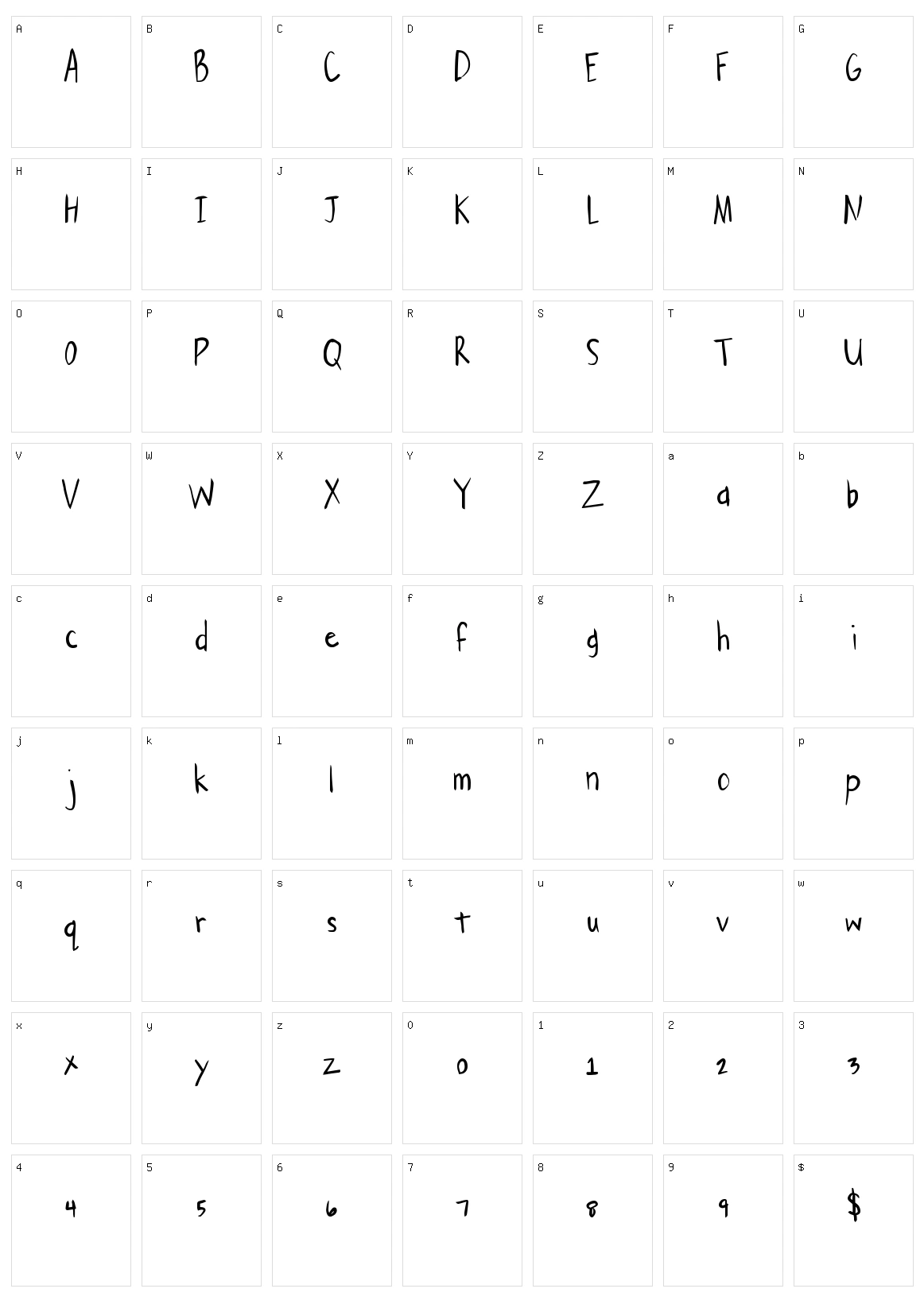
The free font Clean Easy is carefully designed by Xerographer Fonts, showcasing a thoughtful balance of creativity and usability and falls under the Script font style. When you download the ZIP file, it contains only 9.09 KB of font files, making it lightweight and quick to download. Please review the license details below to understand permitted usage and distribution rights. If license information is not available, we recommend using this font for personal projects only or contacting the author directly for commercial usage permissions.